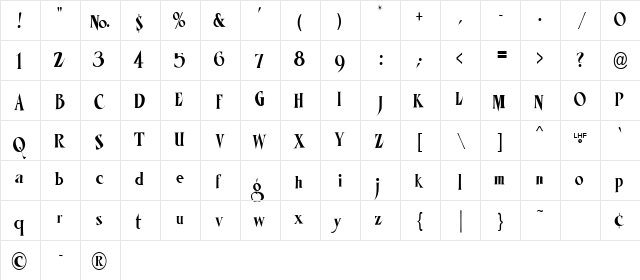
LHF Mister Kooky Regular
Design Context for LHF Mister Kooky Typeface
LHF Mister Kooky is a composed and adaptable typeface that performs quietly and consistently across a wide range of design contexts.
Pro Tip: Use LHF Mister Kooky in both headline and body roles to test its range before committing to a single application.